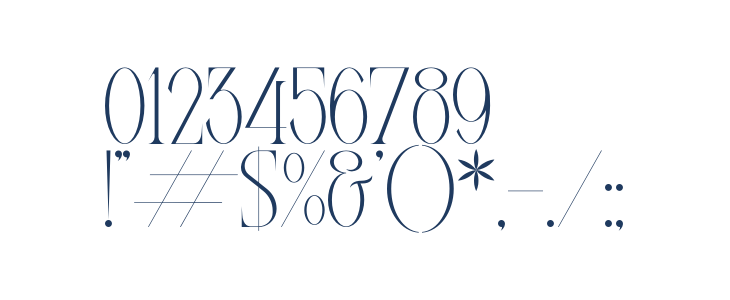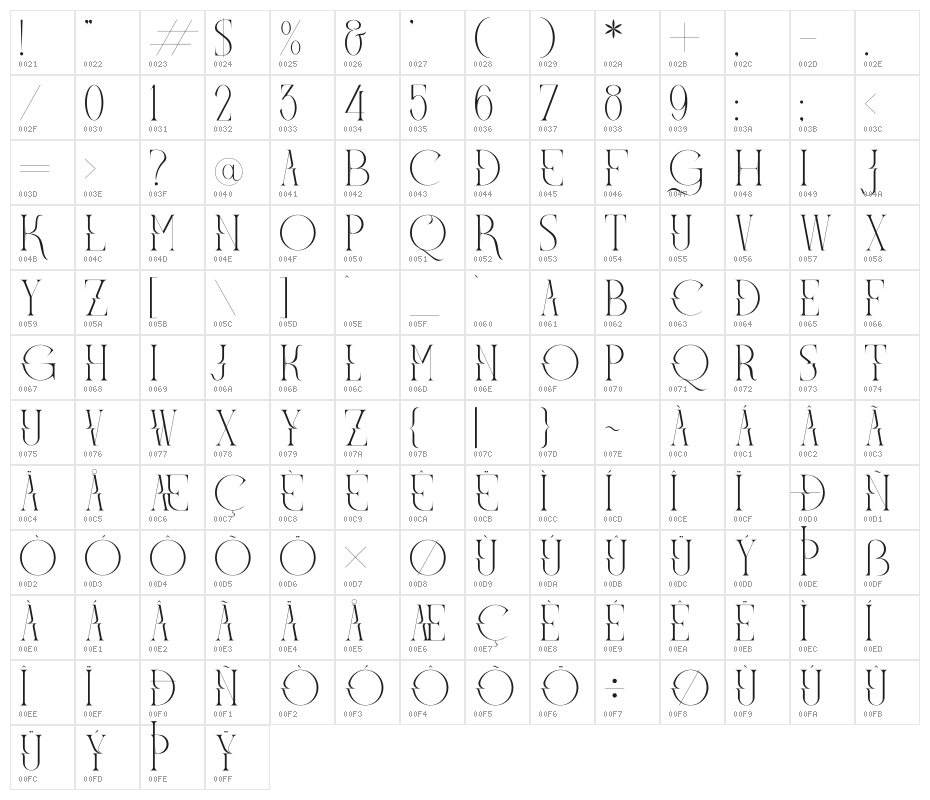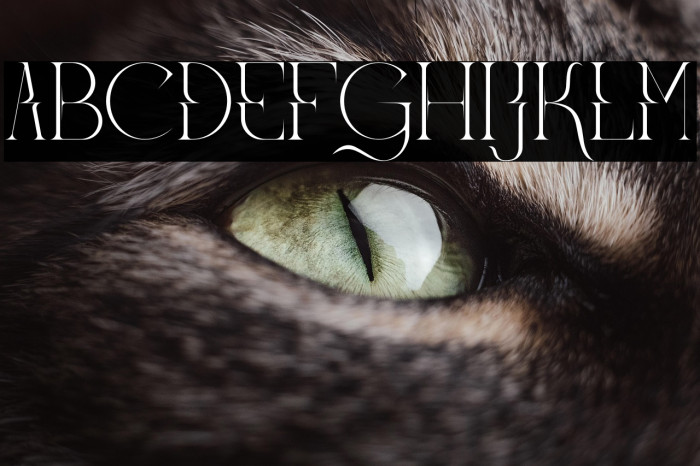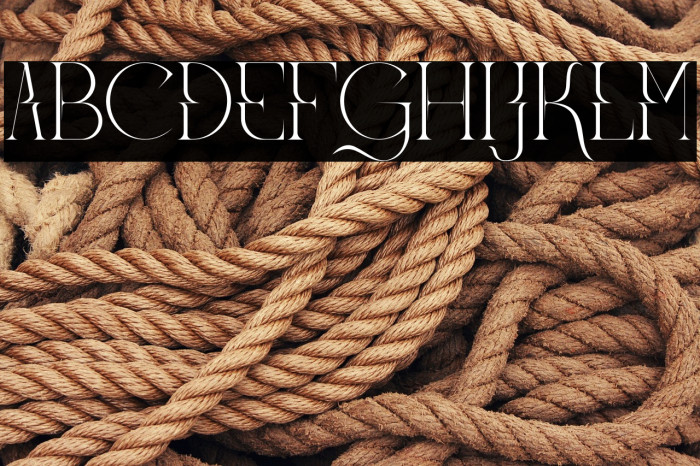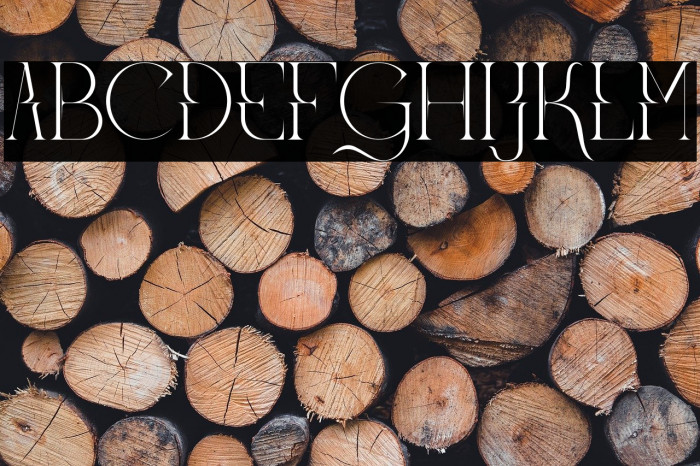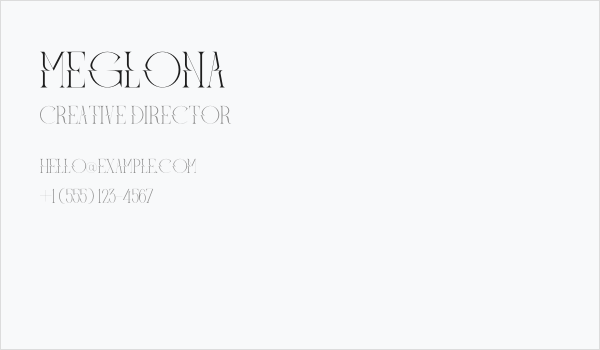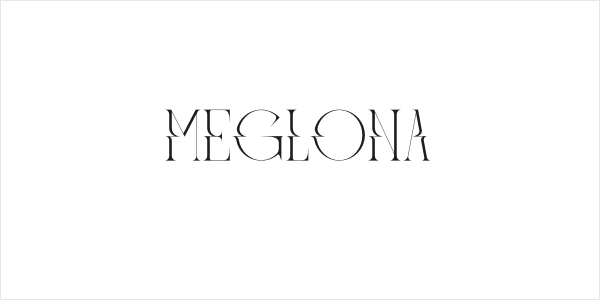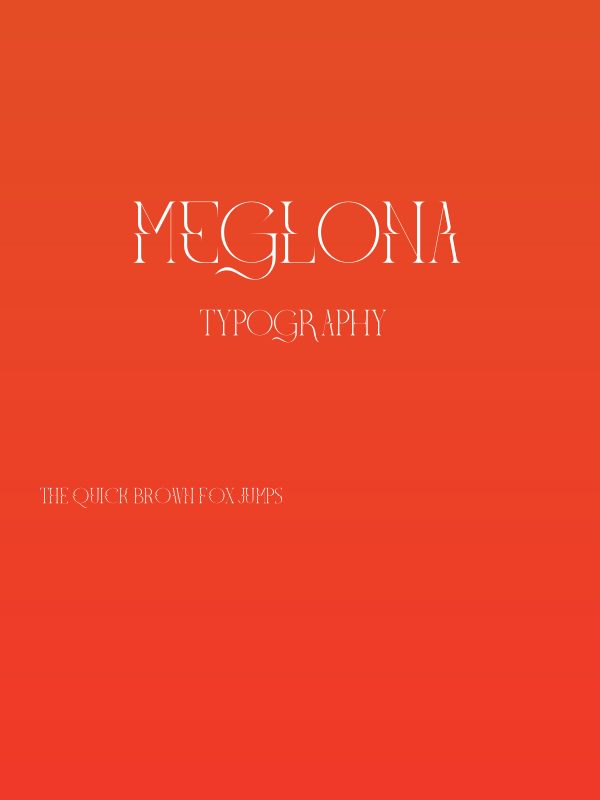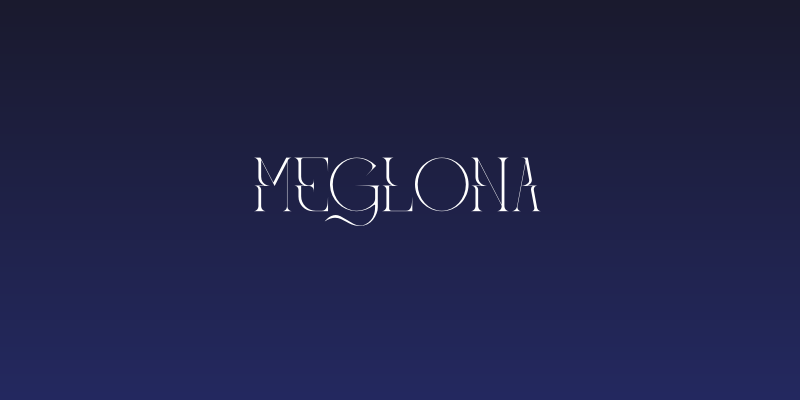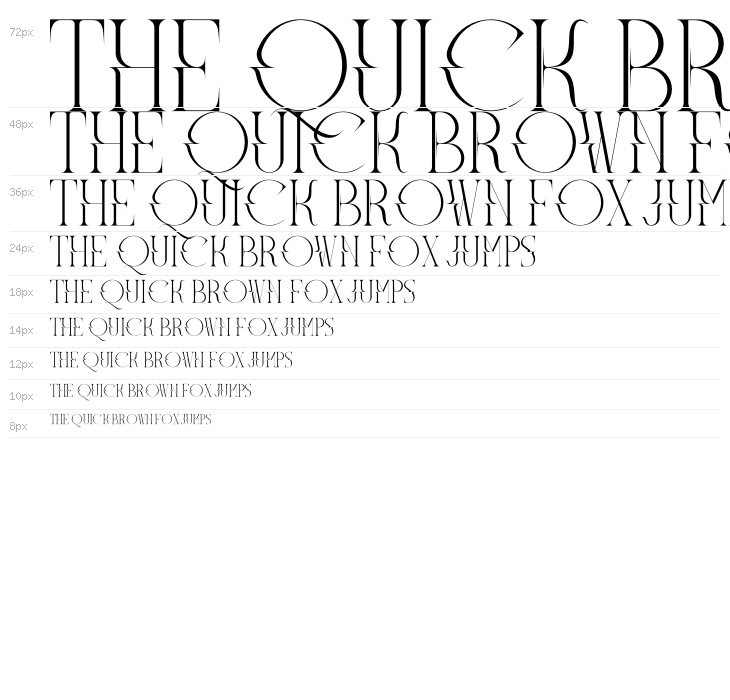
Meglona Font
Meglona Description
This font features a unique blend of elegance and modernity, characterized by its thin, elongated strokes and high contrast between thick and thin lines. The uppercase letters exhibit a sophisticated flair with subtle curves and sharp angles, creating a sense of movement and dynamism. The lowercase letters maintain a consistent style, complementing the uppercase with their graceful forms. The numerals are distinct and stylish, following the same high-contrast theme. Special characters are designed with a decorative touch, enhancing the overall aesthetic. This font is ideal for projects that require a touch of luxury and sophistication.
| Overall Style | Elegant and Modern |
| Proposed Projects | Ideal for luxury branding, high-end fashion magazines, elegant invitations, and sophisticated logo designs. |